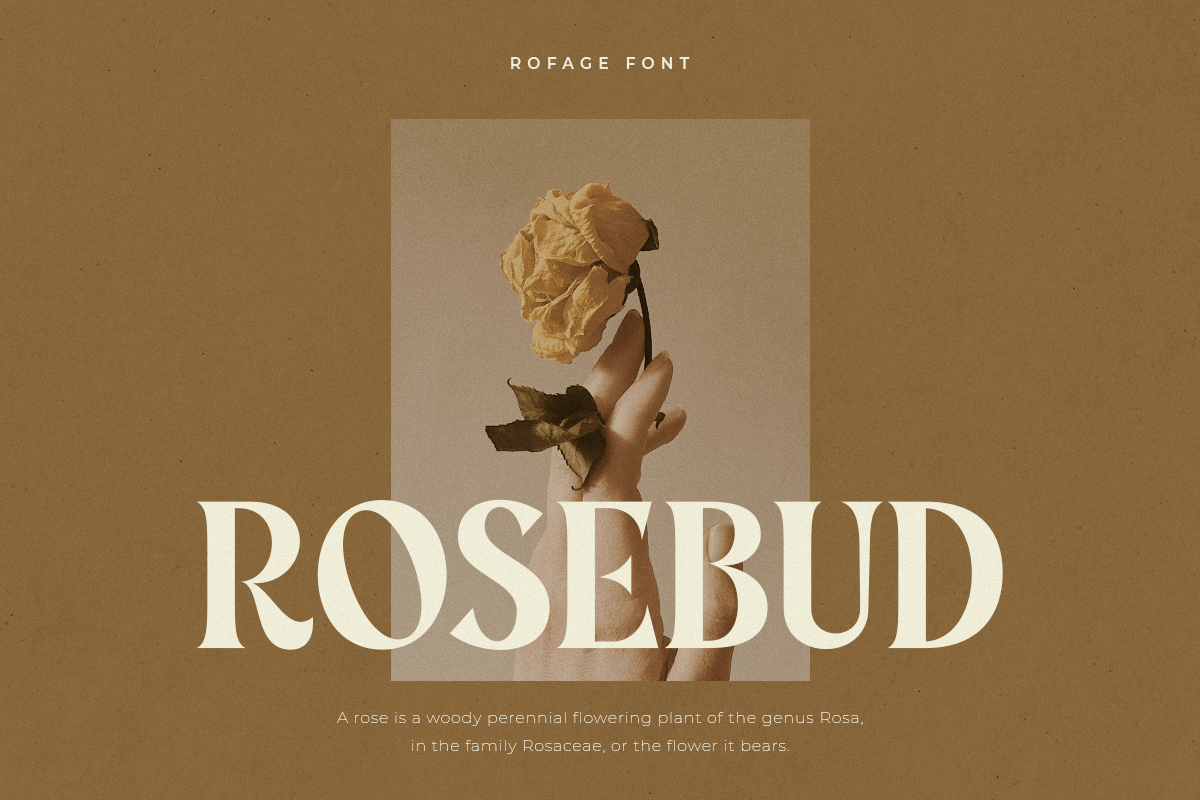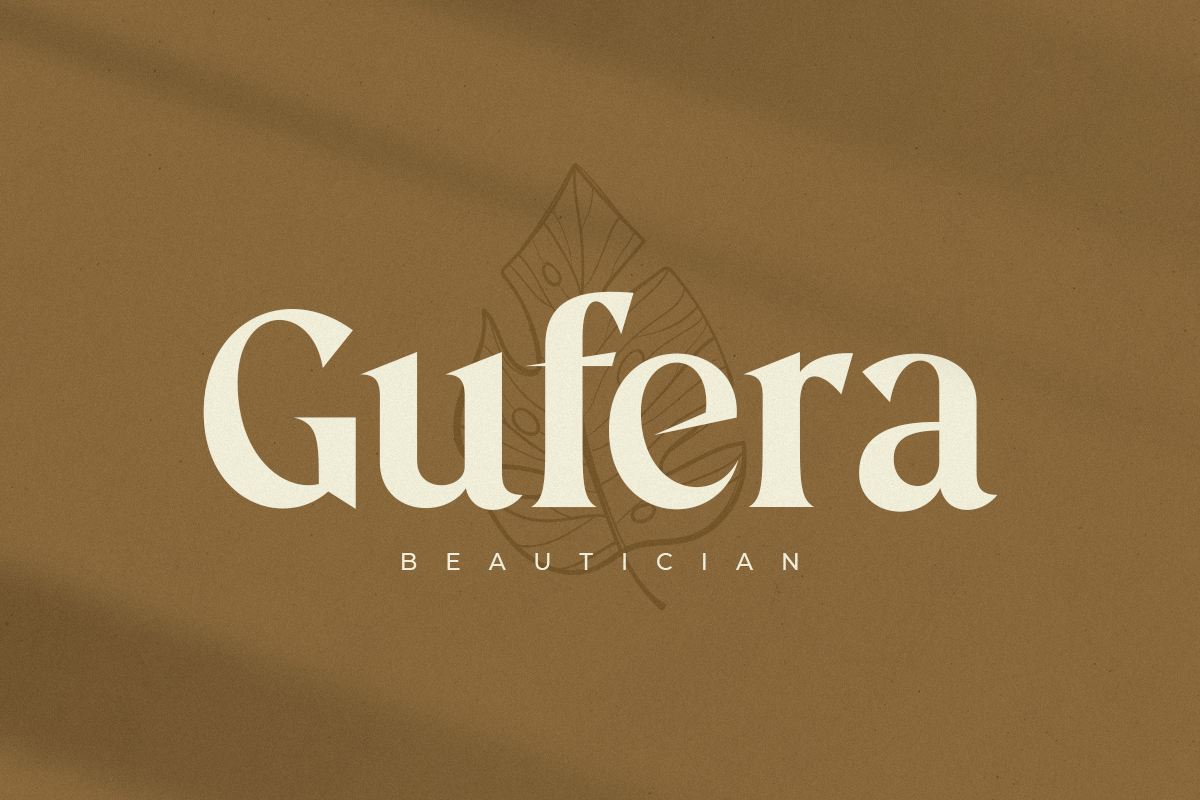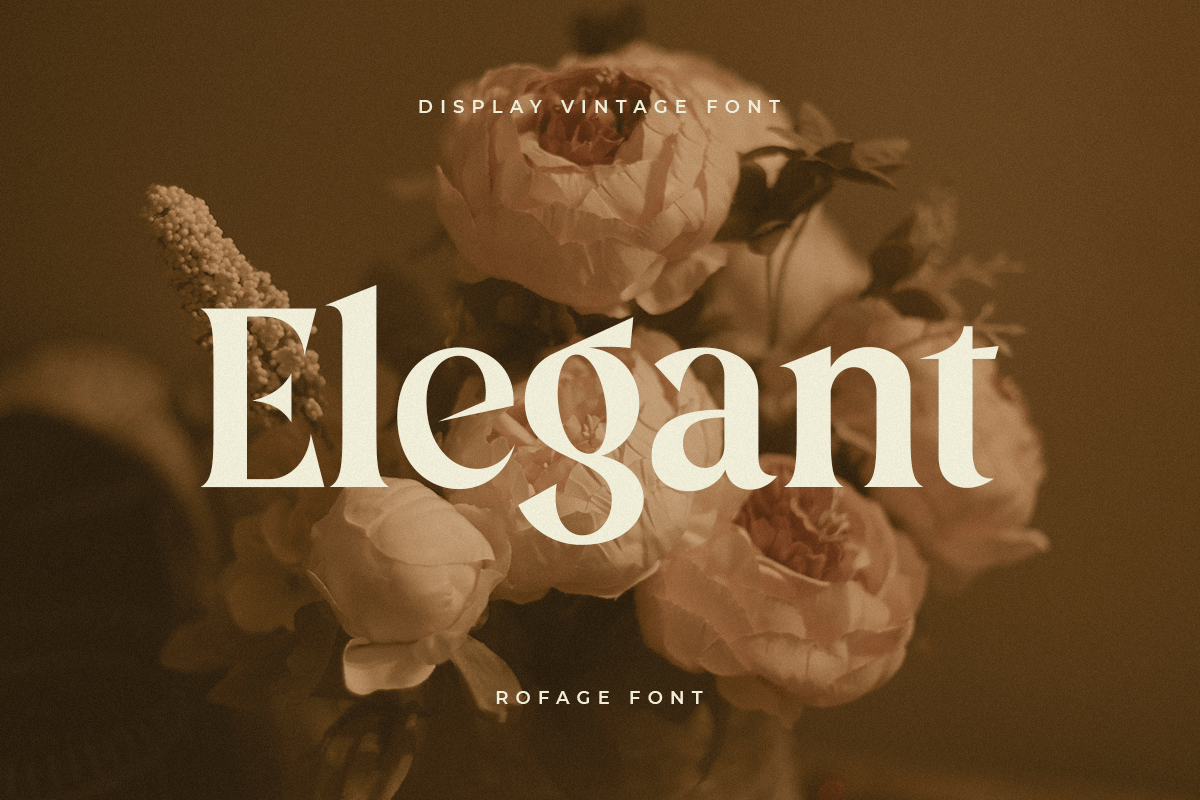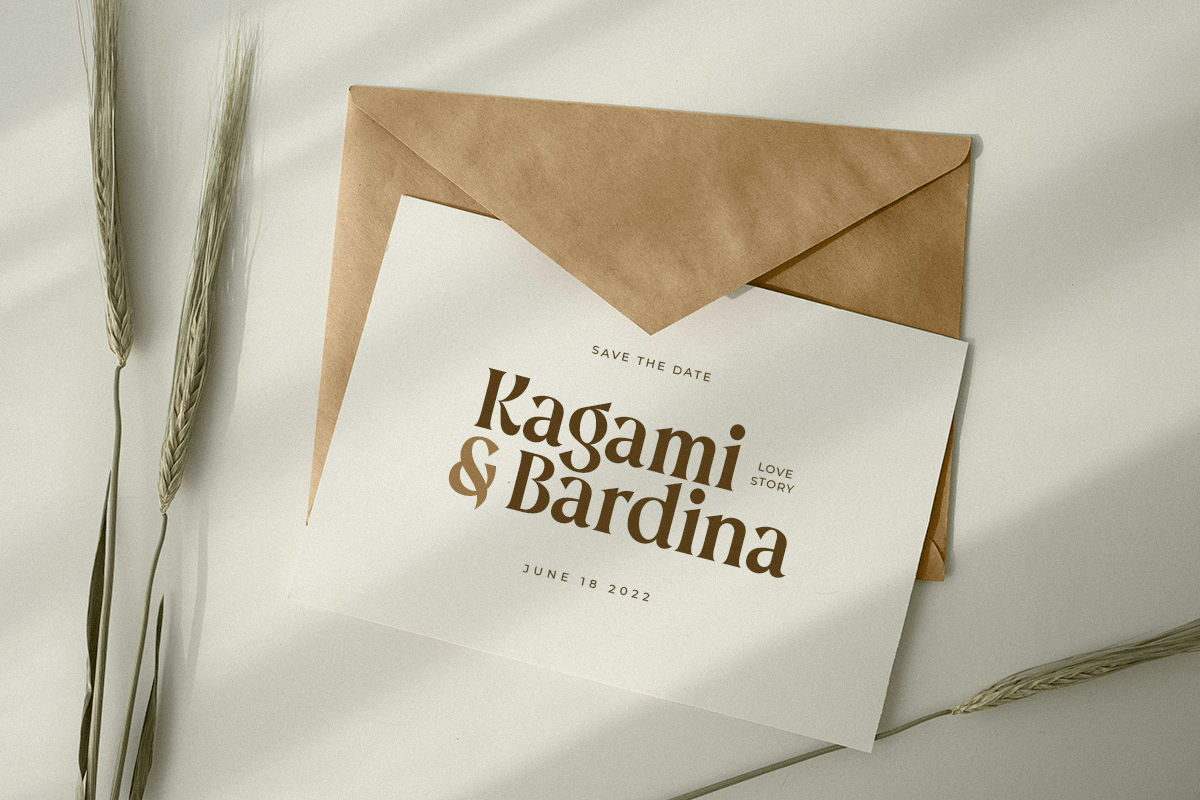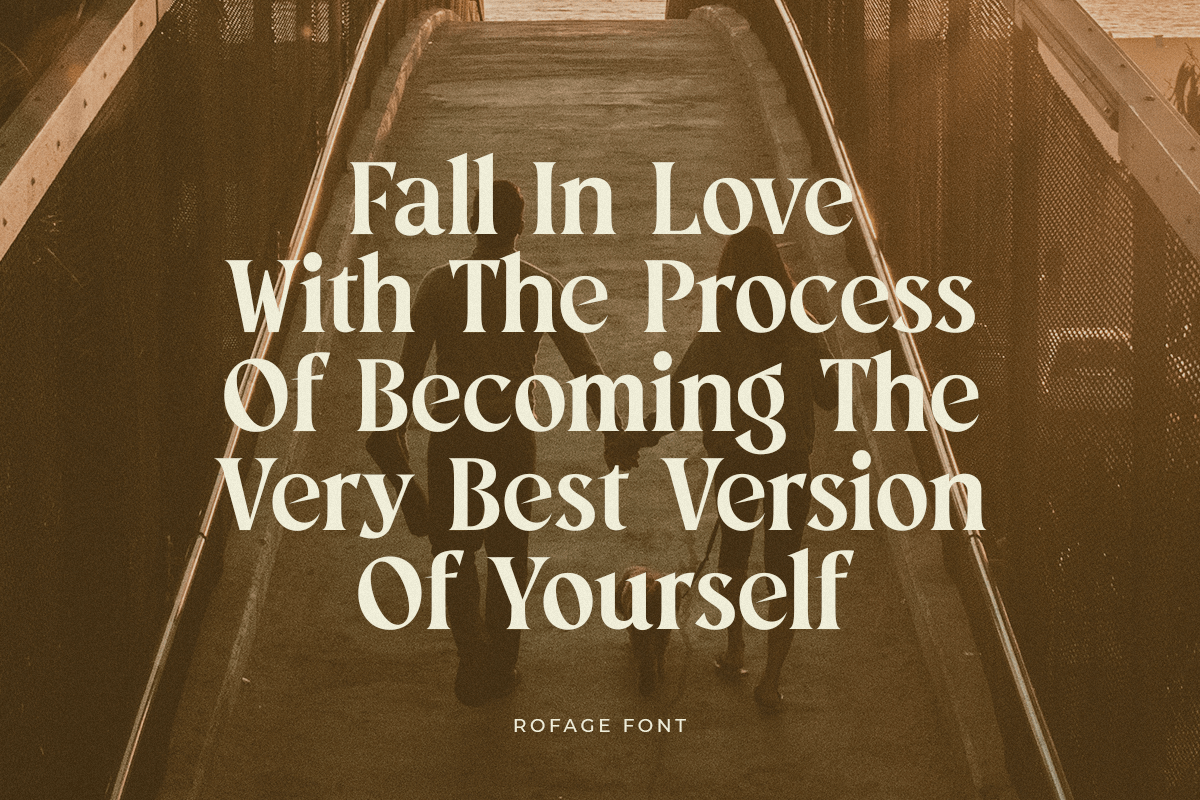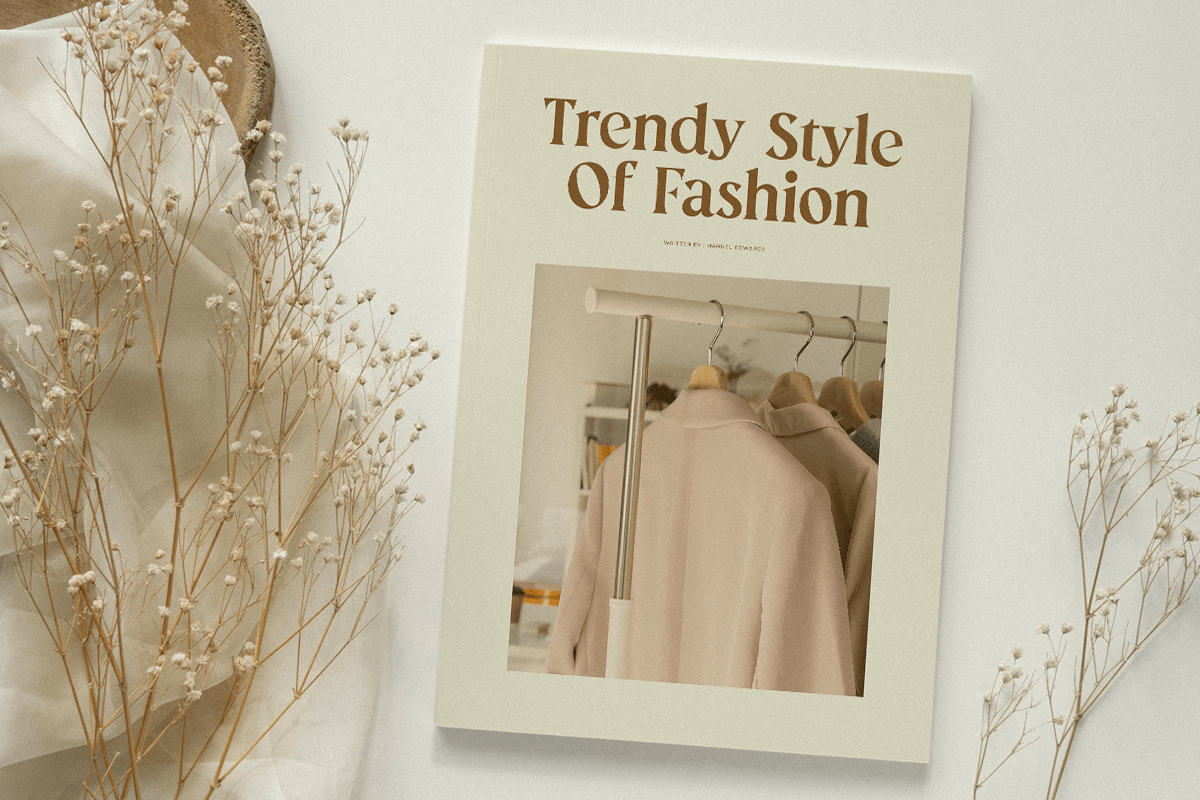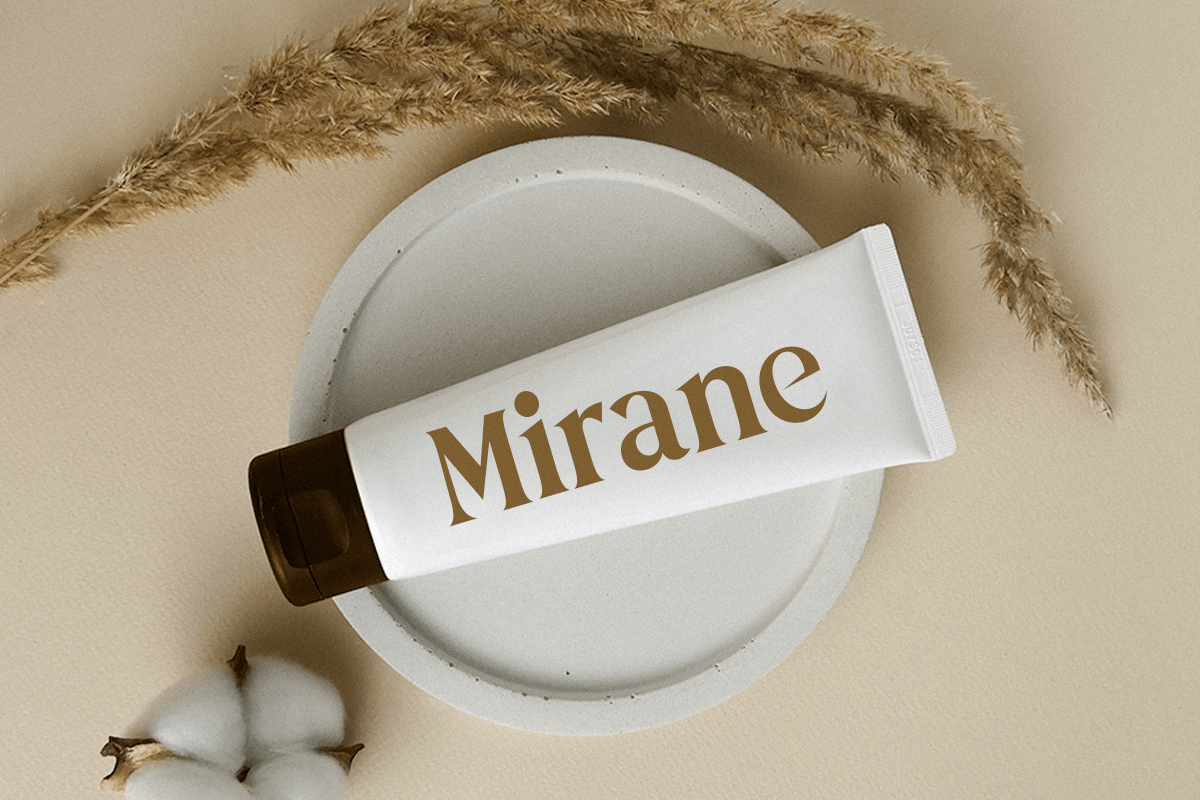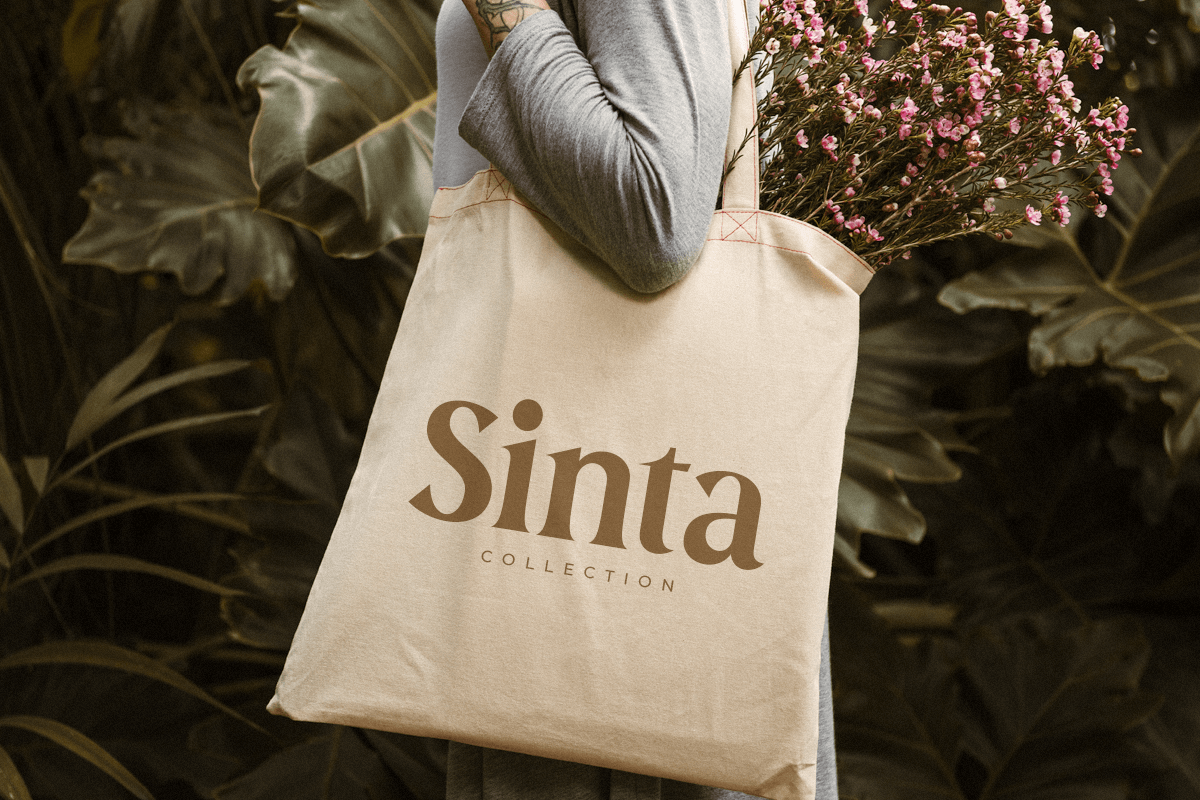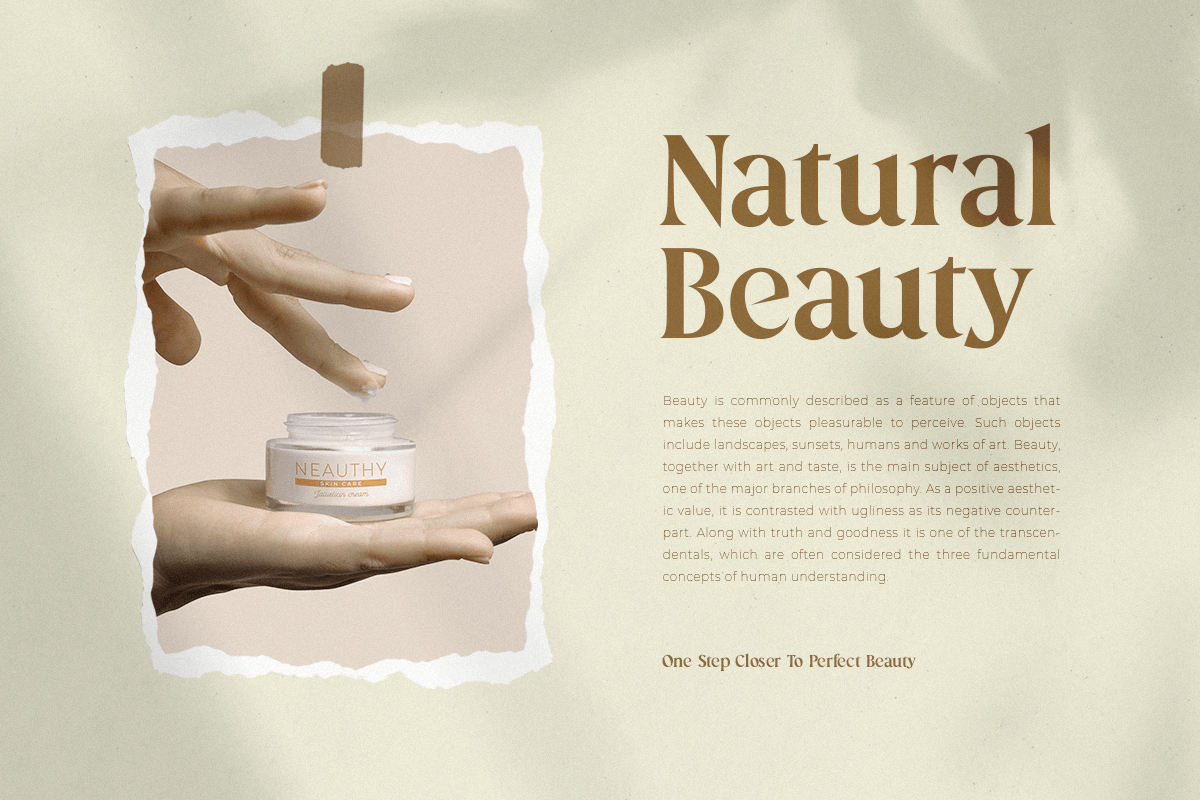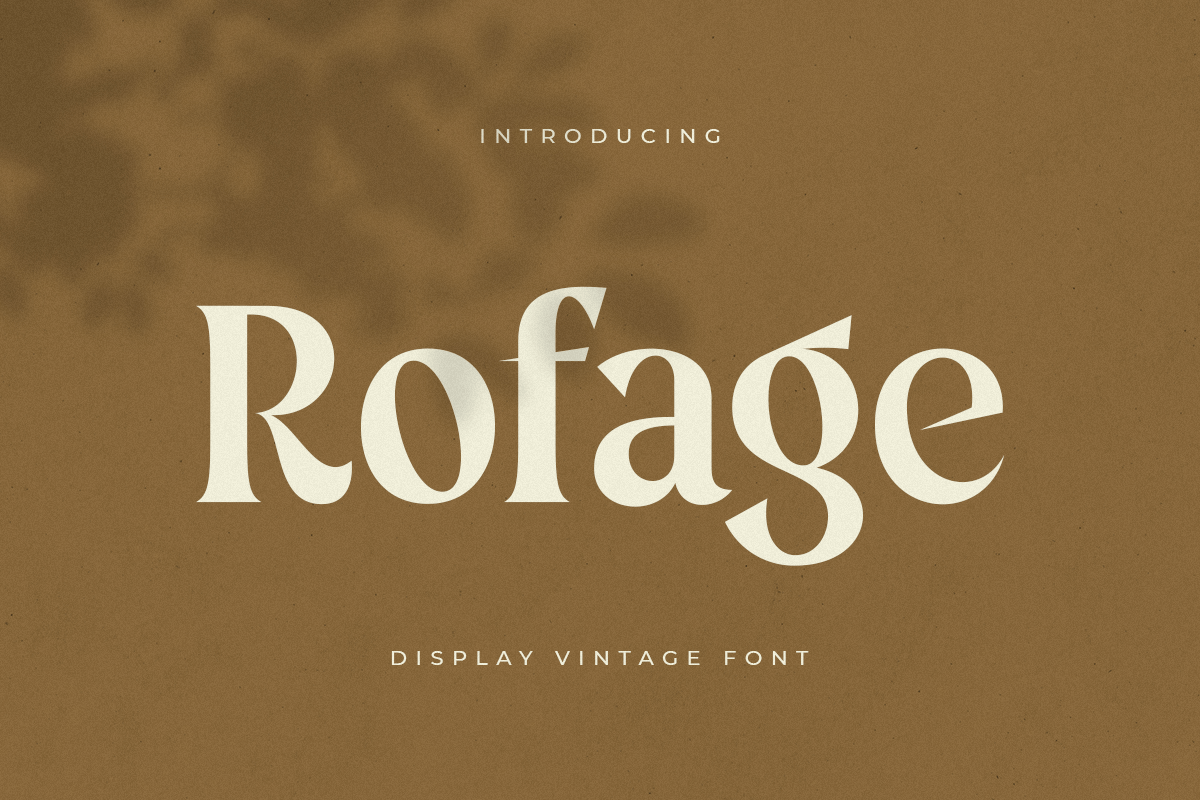
Rosebud
-Display Vintage Font
Rosebud is a Display Vintage font that produced with unique style and ready for vintage projects.
Based on our experience as a graphic designer who works for a lot of companies, we often are requested to design a graphic with a vintage feels and classy style. So, we try to brainstorming and create this font to make the idea is going out. This is perfect for show off in vintage style and retro vibes. You will get vintage, modern, and certainly unique style with this font.